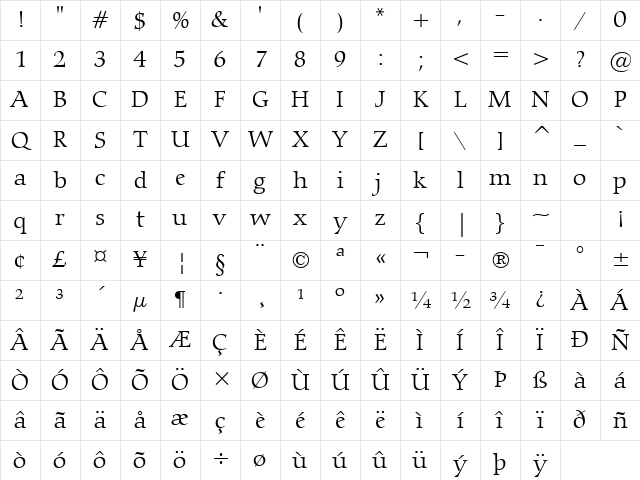
Carmina Lt BT Light
Carmina Lt BT Family
Design Context for Carmina Lt BT
Carmina Lt BT is a composed and adaptable typeface that performs quietly and consistently across a wide range of design contexts. Its slender proportions lend an understated elegance to any composition.